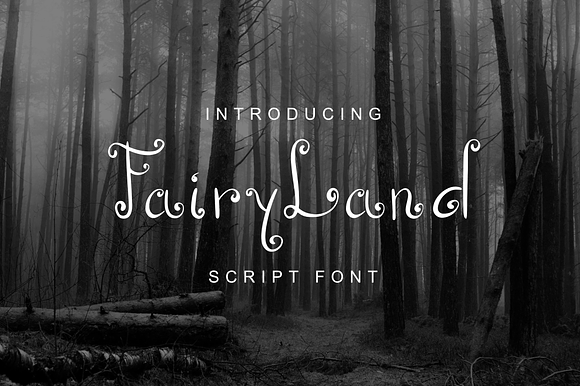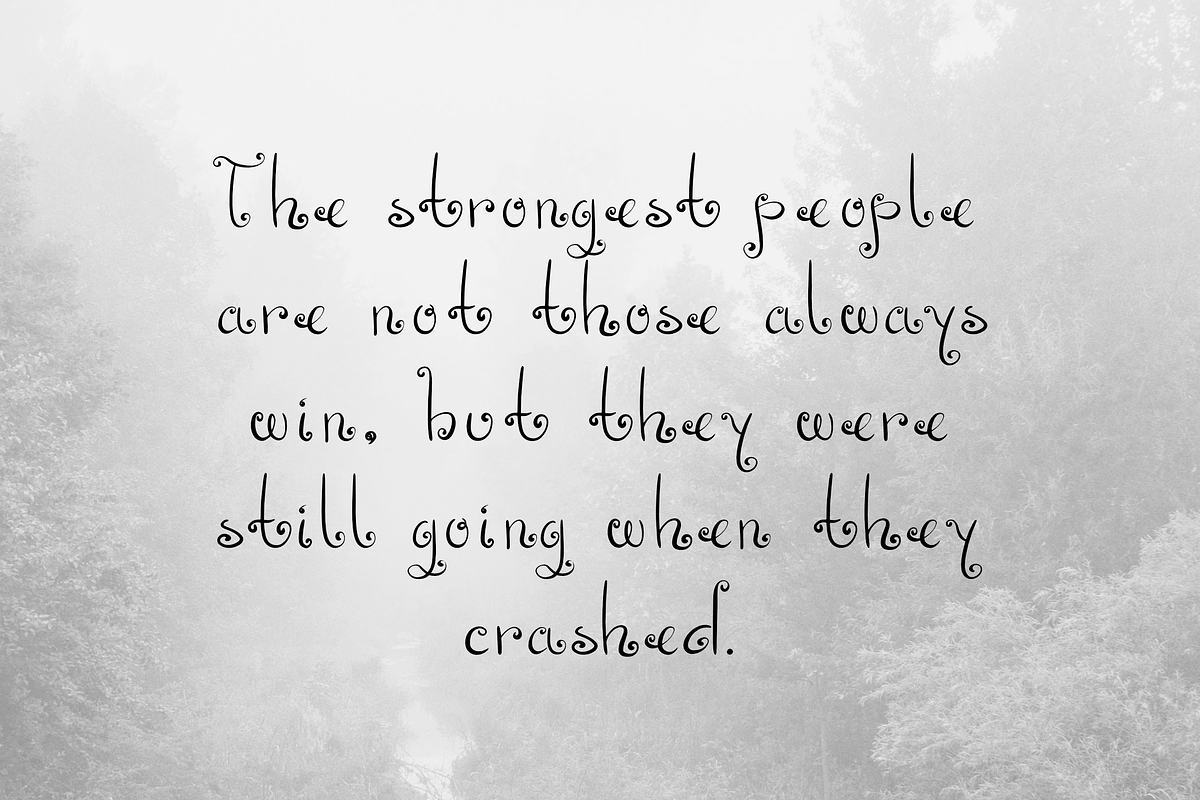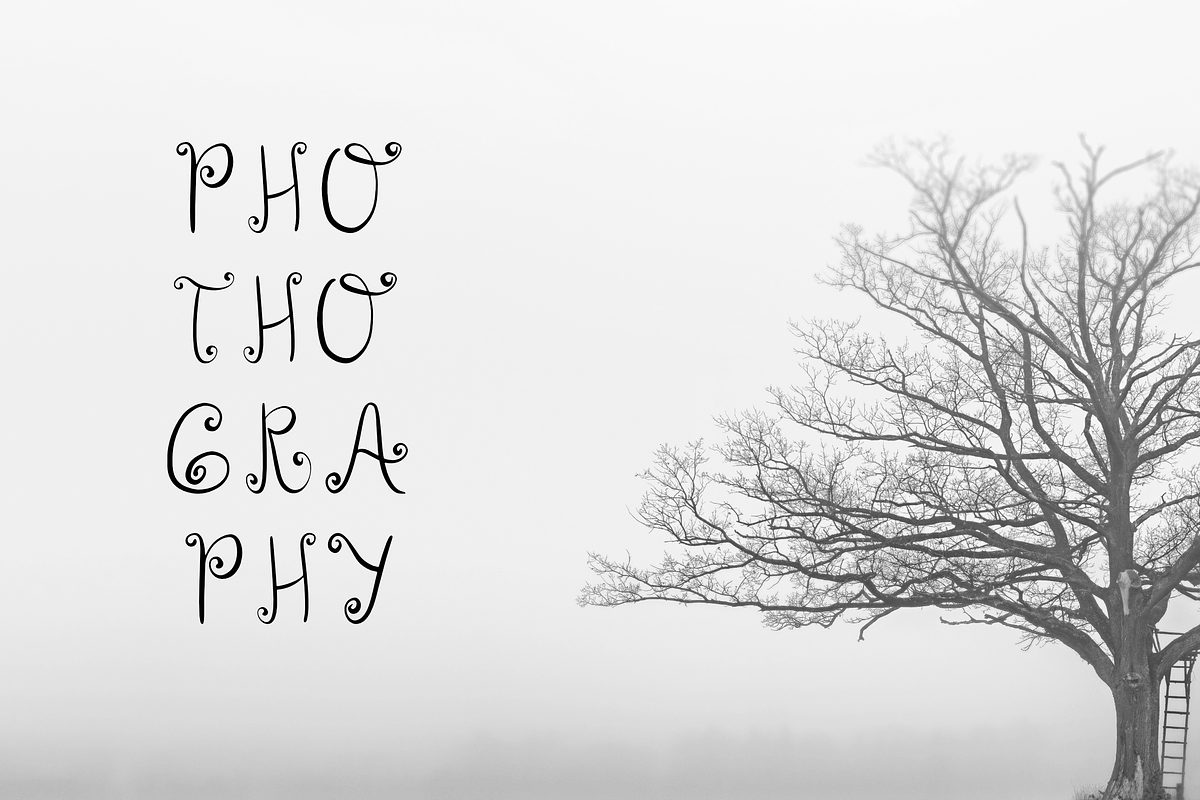
FairyLand - Script Font
Lovely cute font, suitable for any project, signature, quotes, logo, doodle, heading, title, etc.
FairyLand - Script Font by Fatih Gibran fits naturally into Branding, posters, packaging, typography.